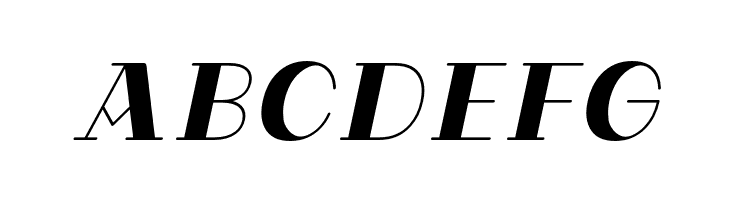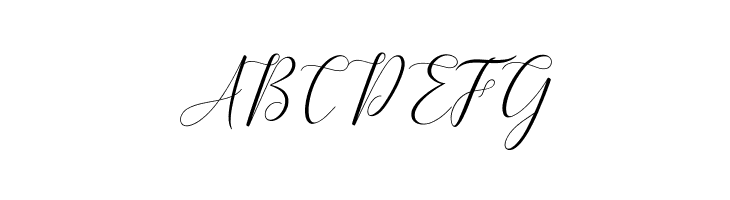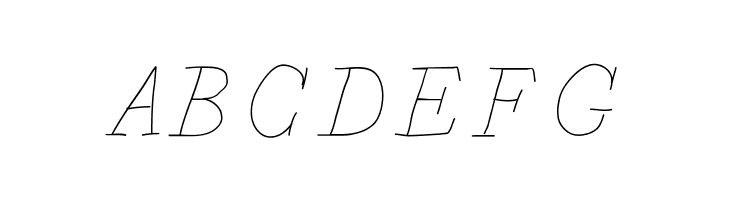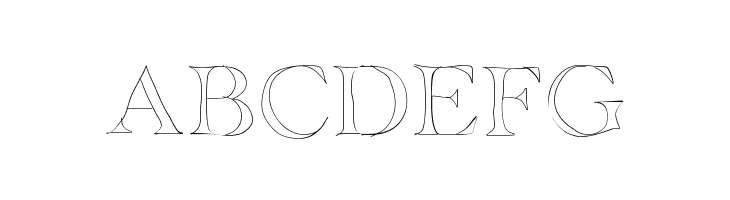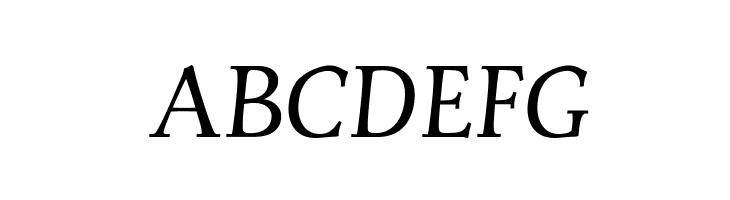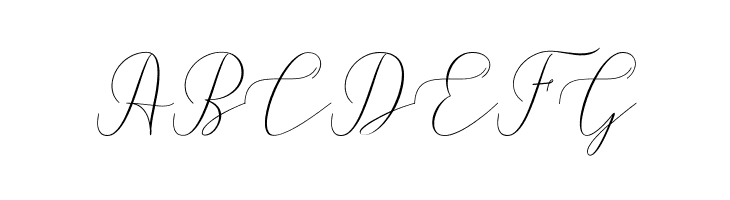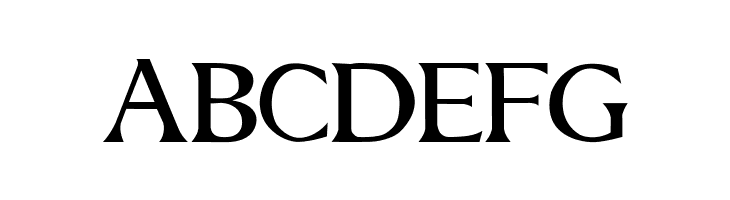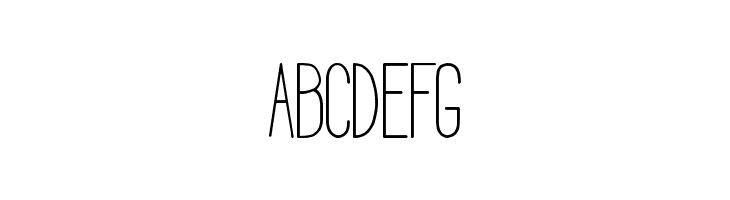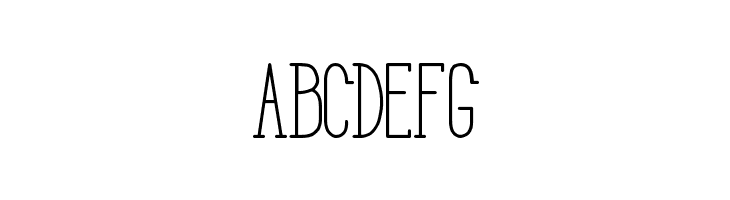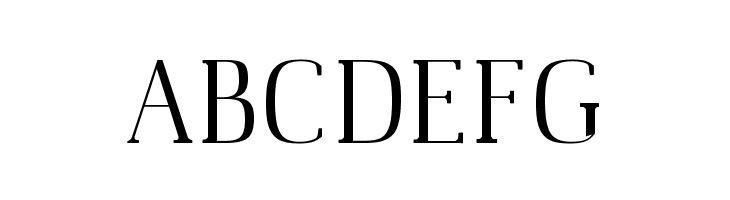
An elegant italic serif font with smooth, flowing lines and refined serifs.
An elegant and flowing script font with refined cursive letterforms.
An elegant script font with flowing, cursive strokes and refined details.
A classic serif font with elegant and refined letterforms, suitable for formal contexts.
A classic serif typeface with elegant proportions and refined strokes.
A refined slab serif font with thin, elongated strokes and a modern, elegant style.
An elegant script font with flowing, cursive letterforms and refined flourishes.
An elegant, cursive script font with flowing, refined letterforms.
A classic serif font with modern elegance and refined letterforms.
A refined and elegant font with thin, uniform strokes and generous spacing.
An elegant script font with fluid, cursive strokes and a refined, handwritten style.
A refined serif font with tall, narrow letterforms and high contrast strokes.
An elegant serif typeface with a refined italic style and pronounced serifs.
An elegant italic serif font with smooth curves and refined serifs.
An elegant serif font with high contrast and refined details.
An elegant script font with fluid, cursive strokes and refined contrast.
A refined script font with elegant, flowing cursive letterforms.
A modern, condensed serif font with elegant and refined letterforms.
A classic serif font with elegant strokes and refined details.
A sleek, modern font with tall, narrow characters and a refined, elegant style.
A tall, elegant serif font with a modern and refined style.
A refined serif font with high contrast and elegant, slender letterforms.
A refined and elegant script font with flowing, connected letters.
A classic serif font with a modern twist, featuring elegant and refined letterforms.
A classic serif font with elegant curves and refined style.
An elegant script font with flowing, cursive lines and a refined aesthetic.
A graceful script font with fluid, interconnected strokes and a refined aesthetic.
A classic serif font with elegant, elongated lines and a refined appearance.
An elegant serif font with a refined italic style and high contrast strokes.
An elegant script font with intricate flourishes and a refined, flowing style.
A refined serif font with thin strokes and a modern, elegant style.
A classic italic typeface with smooth curves and a refined, elegant appearance.
A classic serif font with elegant curves and refined details.
A classic serif font with elegant and refined letterforms.
An elegant italic font with smooth curves and a refined style.